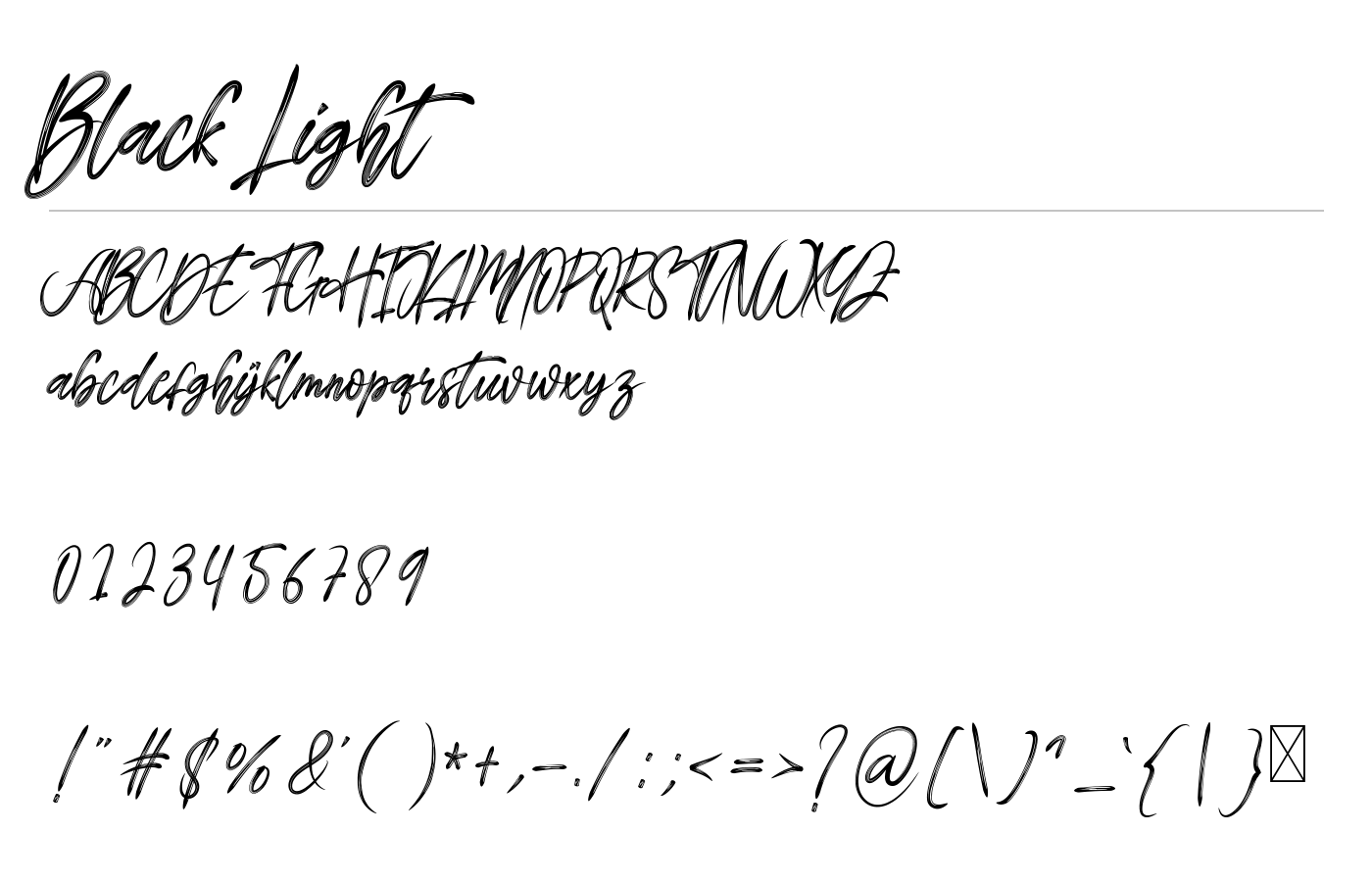
Black Light is a dynamic script font with a hand-drawn, brush style that feels both energetic and elegant. Its slender, slightly irregular strokes and tall x-height create a lively yet sophisticated look, making it ideal for creative branding, fashion labels, and artistic headlines where a personal and modern touch is desired. This font works best in display settings where its expressive character can shine without losing readability.
Black Light Font
About Black Light Font